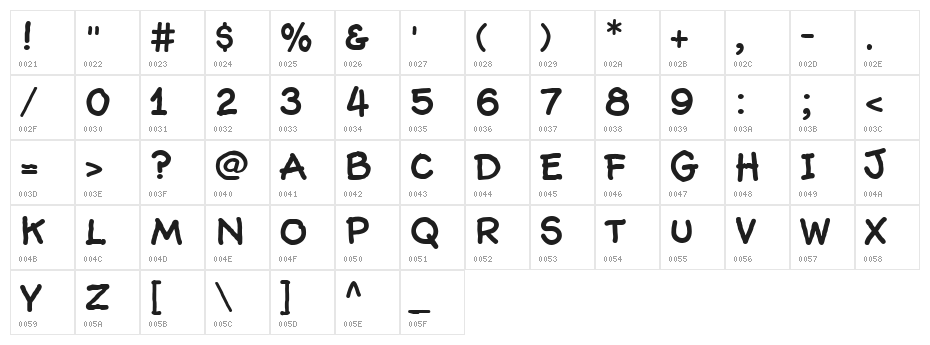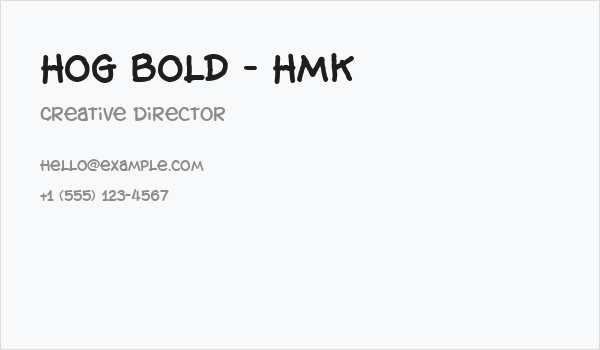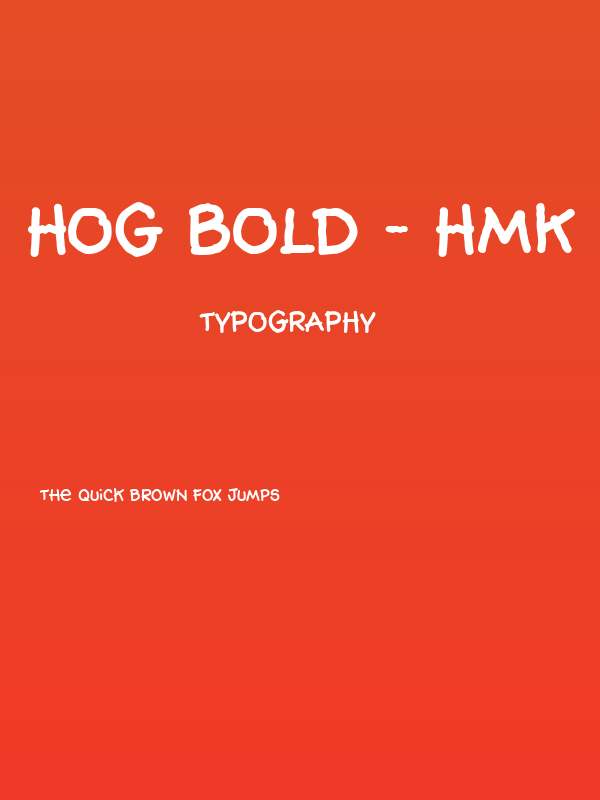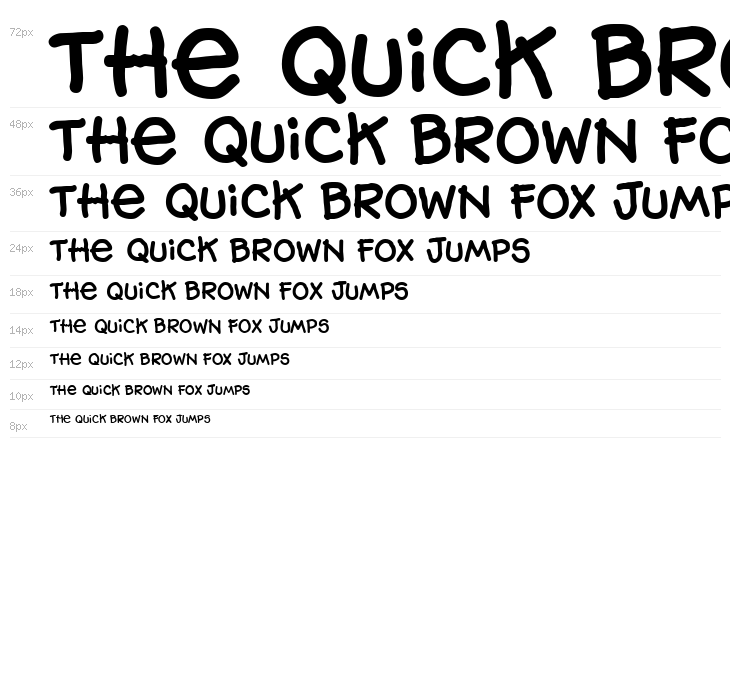
Hog Bold - HMK Font
Hog Bold - HMK Description
This font features a playful and bold handwritten style, characterized by its rounded and slightly irregular letterforms. The strokes are thick and consistent, giving it a strong presence. The uppercase and lowercase letters maintain a uniform height, contributing to its cohesive appearance. The numerals and special characters follow the same playful aesthetic, making it suitable for informal and creative designs. The overall look is casual yet impactful, ideal for projects that require a friendly and approachable tone.
Overall StylePlayful
Use CaseHeadlines, Logos, Informal Text
Proposed ProjectsIdeal for children's books, playful branding, greeting cards, and casual posters.